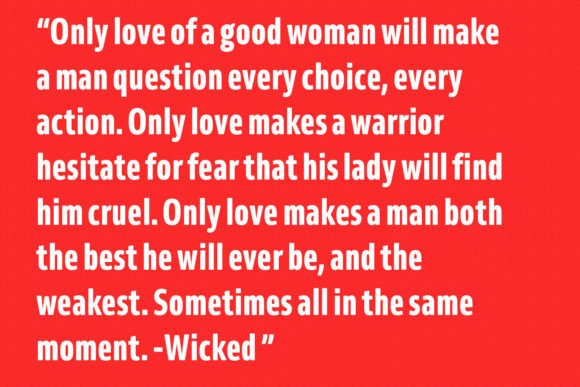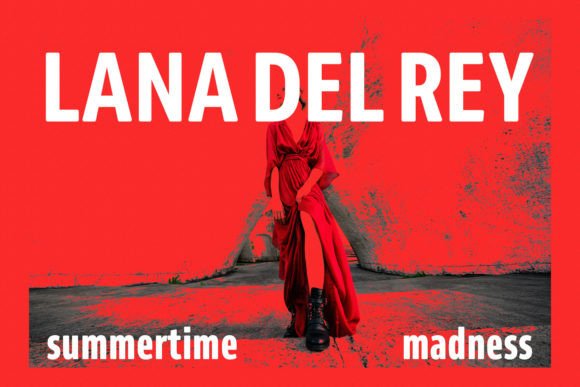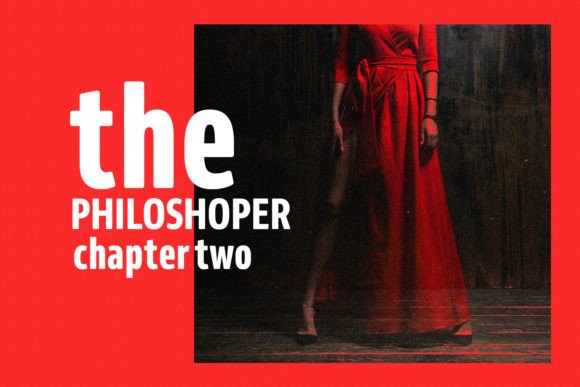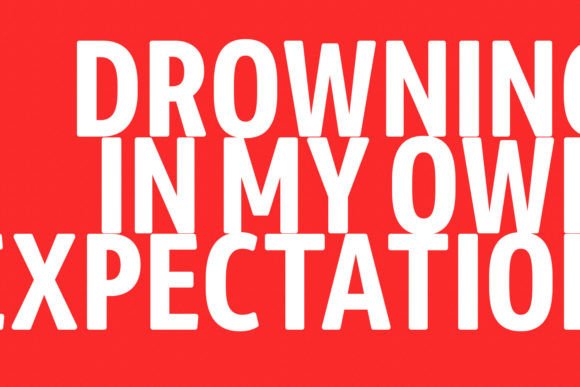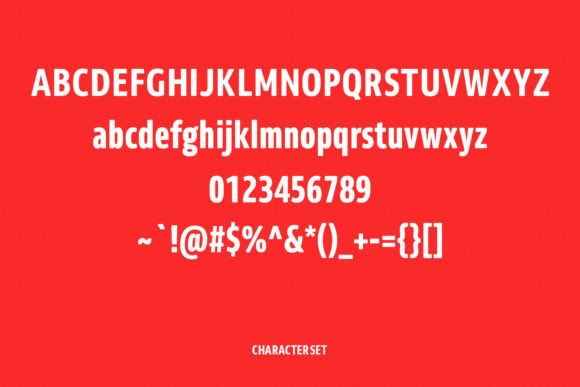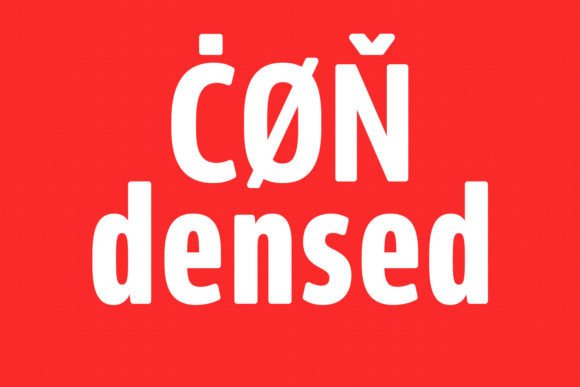
Introducing Earlgos Font: The Ultimate Choice for Bold and Modern Designs
In the world of typography, fonts play a crucial role in conveying the tone and personality of a brand or design. For designers and crafters looking for a font that exudes modernity and sophistication, Earlgos Font is an excellent choice. This condensed sans-serif font has been gaining popularity for its sleek, modern design and versatility in various applications.
What is Earlgos Font?
Earlgos Font is a condensed sans-serif font characterized by its tall and narrow letterforms. This unique feature makes it perfect for creating bold and impactful headings and titles that grab attention. The font’s design is marked by sharp edges and minimalist details, giving it a sense of precision and efficiency.
Key Features of Earlgos Font
- Condensed Design: Earlgos Font features a condensed design, making it ideal for designs with limited space. Its compact spacing and strong vertical emphasis allow for maximum impact in a small footprint.
- Sleek and Modern Aesthetic: The font’s sleek and modern design makes it perfect for branding, advertising, and editorial projects that require a contemporary feel.
- Tall and Narrow Letterforms: The tall and narrow letterforms of Earlgos Font create a bold and impactful look, making it perfect for headings and titles.
- Sharp Edges and Minimalist Details: The font’s sharp edges and minimalist details give it a sense of precision and efficiency, making it suitable for designs that require a clean and modern look.
Use Cases for Earlgos Font
Earlgos Font is an excellent choice for various design applications, including:
- Branding: Use Earlgos Font to create bold and memorable brand identities that make a lasting impression.
- Advertising: The font’s condensed design and modern aesthetic make it perfect for advertising campaigns that require attention-grabbing headlines.
- Editorial Projects: Earlgos Font is suitable for editorial projects, such as magazines, newspapers, and blogs, that require a clean and modern typography.
- Headings and Titles: The font’s tall and narrow letterforms make it perfect for creating bold and impactful headings and titles.
Benefits of Using Earlgos Font
By using Earlgos Font, designers and crafters can benefit from:
- Improved Readability: The font’s clear and concise design ensures excellent readability, even in small sizes.
- Increased Versatility: Earlgos Font can be used in various design applications, from branding to editorial projects.
- Enhanced Visual Appeal: The font’s modern aesthetic and bold letterforms create a visually appealing design that grabs attention.
Tips for Using Earlgos Font Effectively
To get the most out of Earlgos Font, consider the following tips:
- Use it for Headings and Titles: Earlgos Font is perfect for creating bold and impactful headings and titles.
- Experiment with Font Sizes: The font’s condensed design makes it suitable for use in various font sizes, from small to large.
- Pair it with Other Fonts: Earlgos Font can be paired with other fonts to create a unique and visually appealing typography.
Earlgos Font is an excellent choice for designers and crafters looking for a modern and sophisticated font for their designs. Its condensed sans-serif design, tall and narrow letterforms, and sharp edges make it perfect for creating bold and impactful headings and titles. With its versatility and readability, Earlgos Font is suitable for various design applications, from branding to editorial projects.
Whether you’re looking to create a bold and memorable brand identity or a visually appealing editorial project, Earlgos Font is an excellent choice. Its modern aesthetic and precision design make it an excellent addition to any design project.